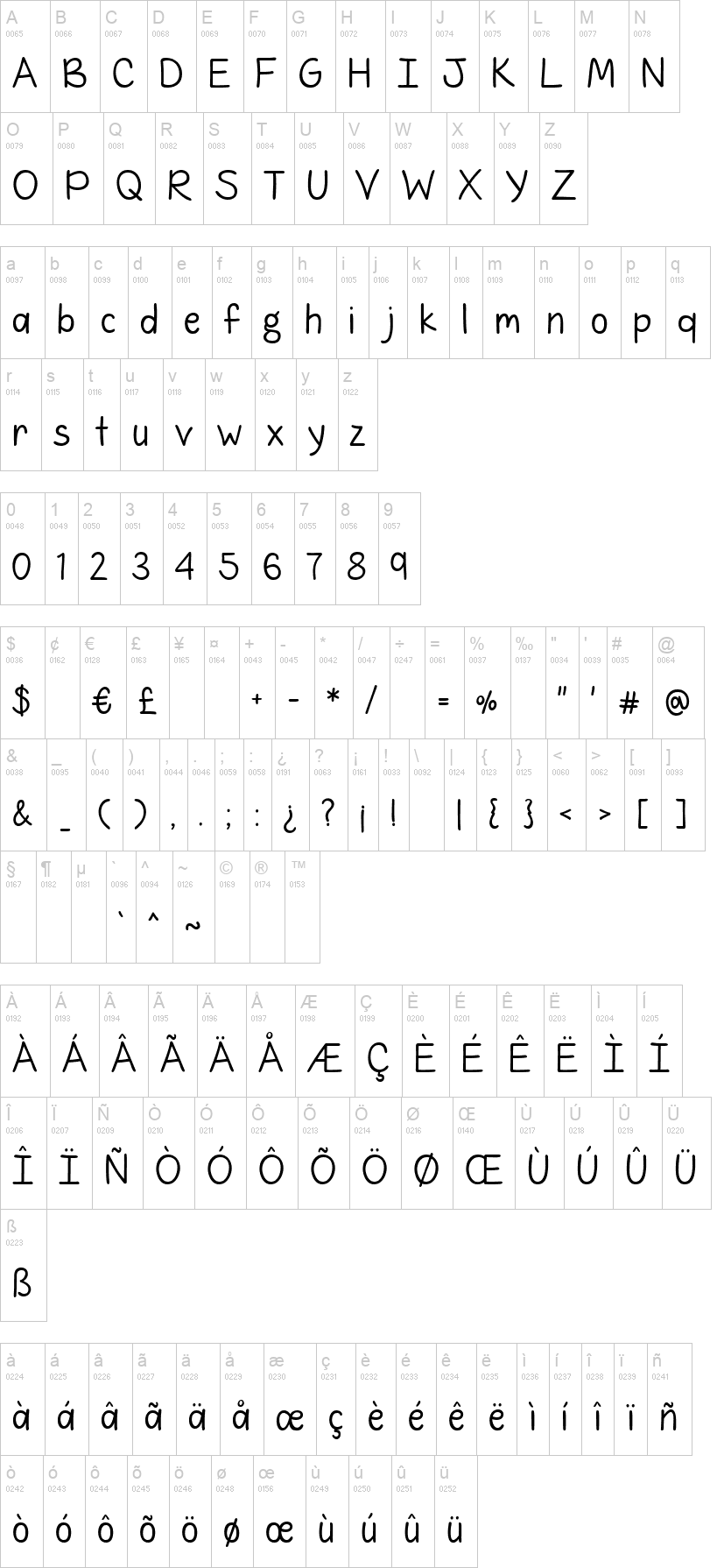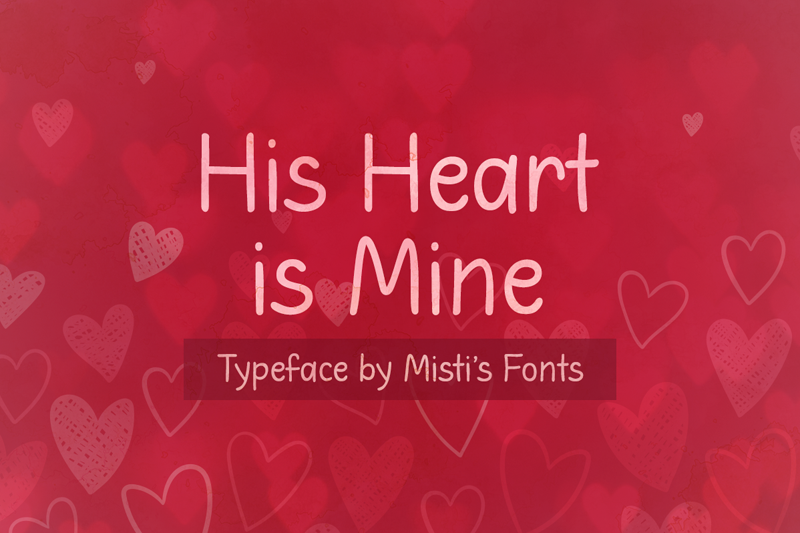
Note of the authorIntroducing His Heart is Mine, the perfect font to add a touch of love and warmth to any project. This adorable handwritten font is inspired by the essence of Valentines Day, making it the ideal choice for any romantic occasion or heartfelt message. Its cute and playful style is sure to capture the attention of your audience and convey any message with a touch of sweetness.